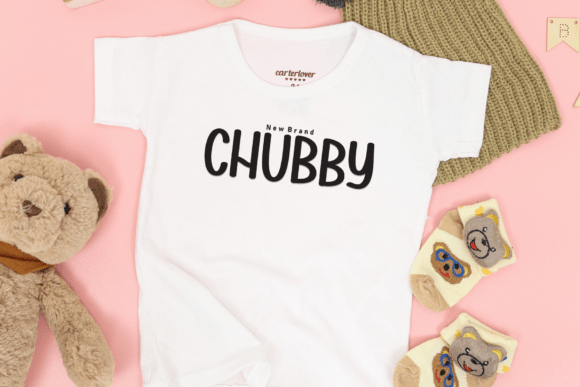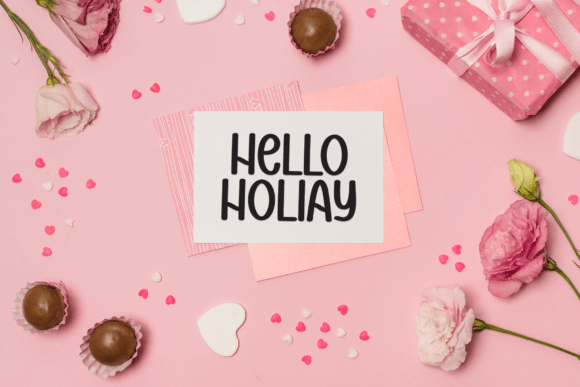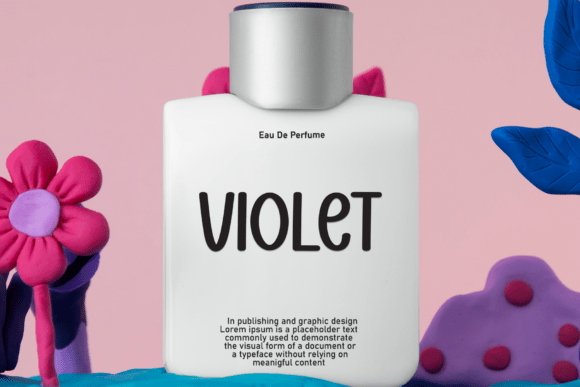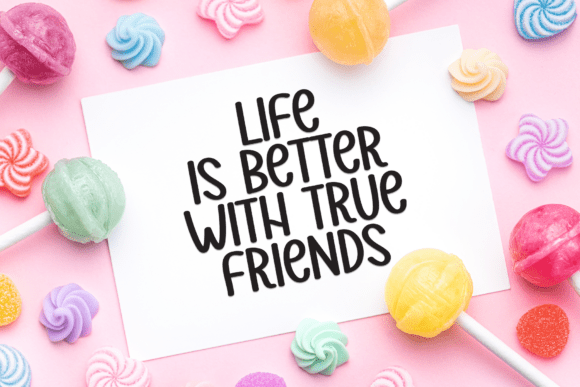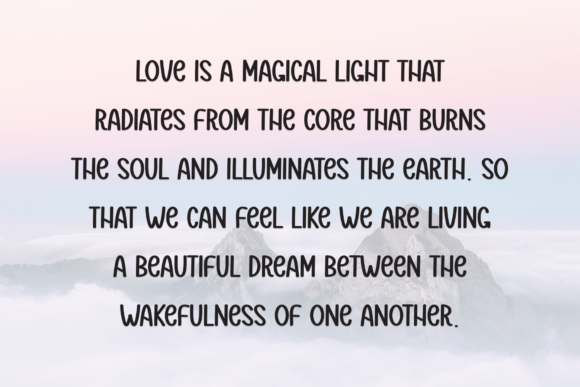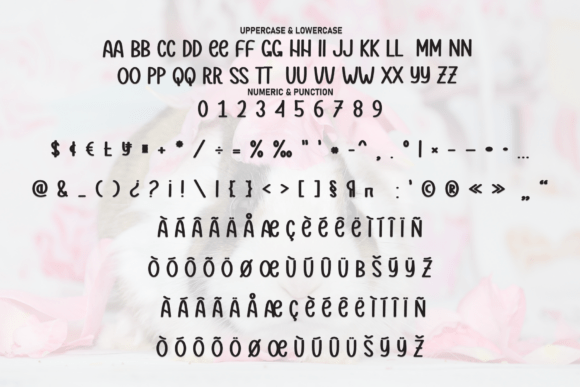
Unleashing Creativity with Bunny Beautiful Font
As a designer, there’s nothing quite like that moment when your ideas start to flow and your imagination runs wild. You’re brainstorming a new project, flipping through your design inspiration board, and suddenly, a spark of creativity hits you. It’s the perfect combination of style, elegance, and whimsy that sets your heart racing and gets your creative juices flowing.
For those special moments, you need a font that can keep up with your artistic vision. Enter the Bunny Beautiful Font, a stunning display font set that’s been meticulously crafted to bring a touch of sophistication and charm to your designs. With its unique blend of dynamic fervor and cordial elegance, this typeface is the perfect addition to any designer’s toolkit.
Bunny Beautiful Font Key Features
- Unique Characteristics: Bunny Beautiful Font features a unique blend of whimsical and elegant elements, with intricate details and soft curves that evoke a sense of playfulness and sophistication.
- Customization Options: The font includes a range of customization options, including ligatures, swashes, and alternate characters, allowing designers to add a personal touch to their designs.
Bunny Beautiful Font Review
I recently had the chance to work with the “Bunny Beautiful Font” and I must say it’s a unique and charming addition to any design project. ✨ One of the things that stood out to me was its playful, whimsical feel, which makes it perfect for projects that need a touch of innocence and wonder.
- Perfect for use in children’s book covers, greeting cards, and other projects that require a light-hearted tone.
- Includes a variety of special characters and symbols that add to the font’s overall charm.
However, I did encounter a few limitations when working with the font. ⚠️ One of the main issues I faced was the font’s lack of versatility, as it’s not suitable for use in formal or professional projects. Additionally, the font’s size and weight options can be a bit limited, which may not be ideal for designers who require more flexibility.
Overall, I would give the “Bunny Beautiful Font” 3.5 out of 5 stars. While it’s a lovely addition to any design project, its limitations may make it less suitable for certain types of projects. Still, I think it’s a great option for designers who are looking for a playful, whimsical font to add some personality to their work.
For the best results, use Bunny Beautiful Font for titles, headings, and decorative text. It’s perfect for:
- Wedding stationery and decorations
- Cute and playful blog posts and social media graphics